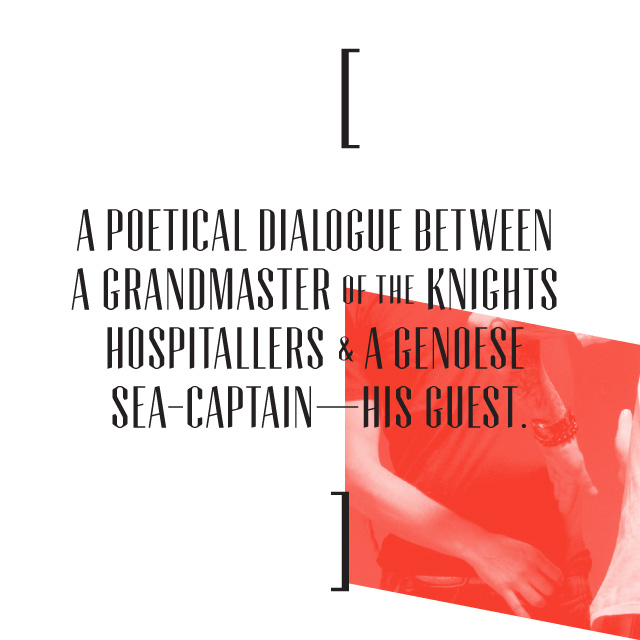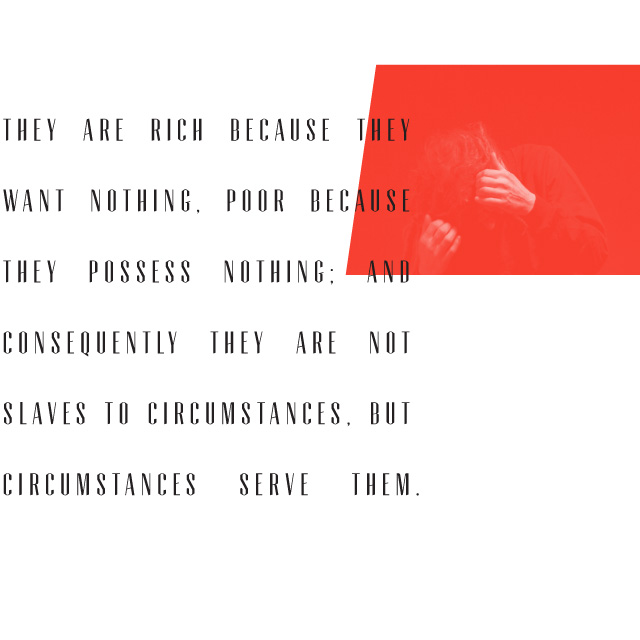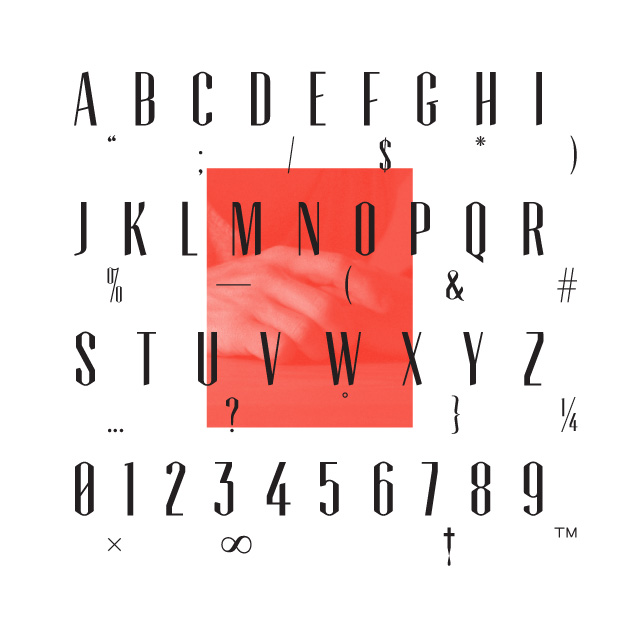
Tommaso
An elegant and angular Condensed upper-case.
Beautiful line width variation in this condensed sans-serif. Perfect for an elegant modernist headline.
Eli Horn